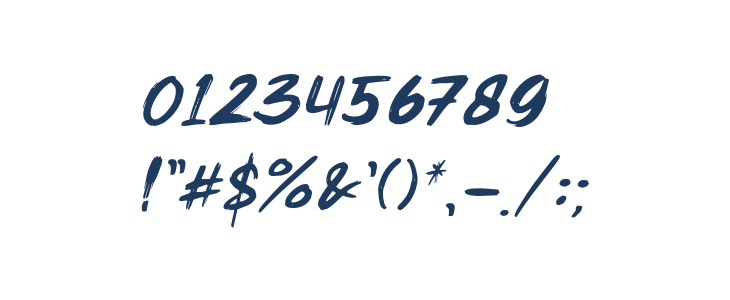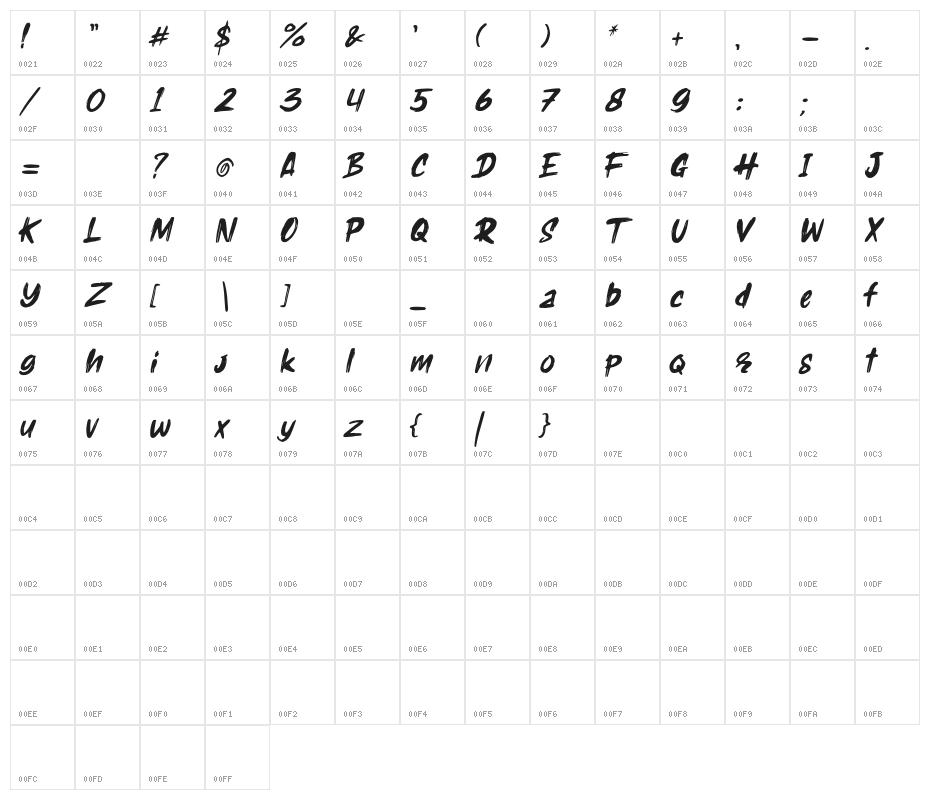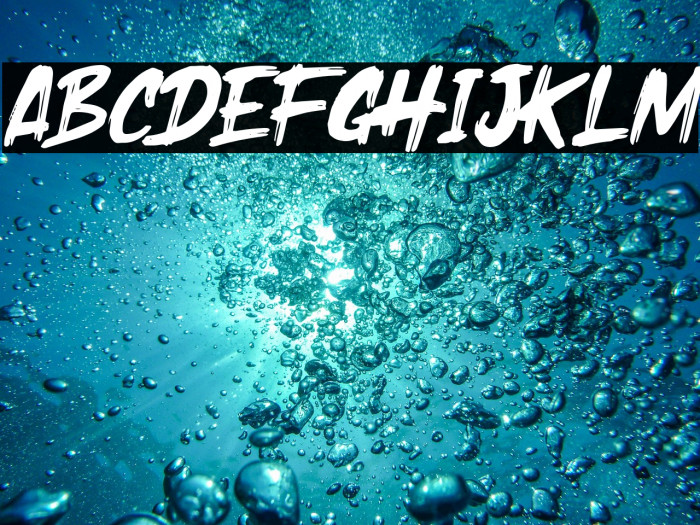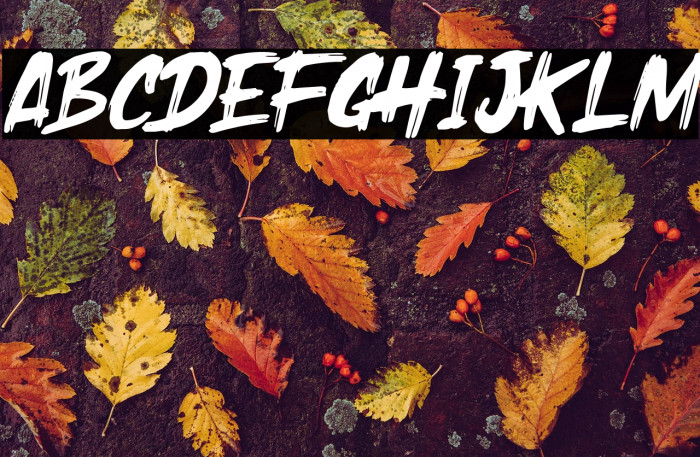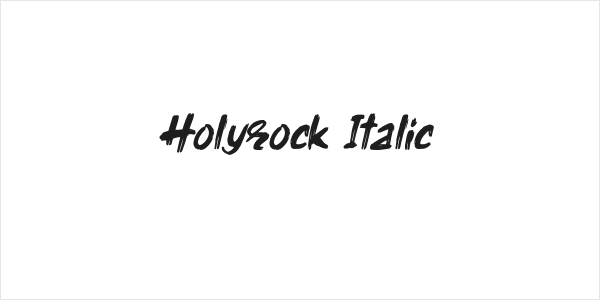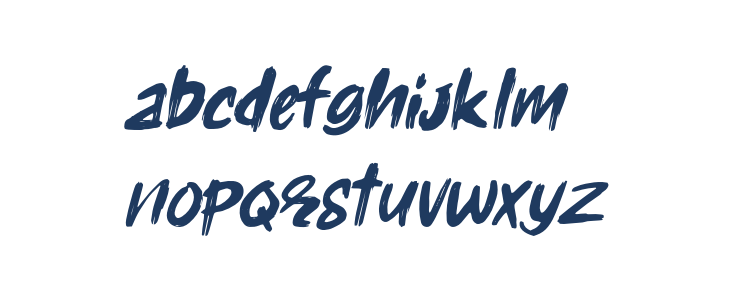
Holyrock Italic Font
Holyrock Italic Description
This font features a bold, dynamic brush style with a strong italic slant, giving it an energetic and expressive appearance. The strokes are thick and uneven, mimicking the natural flow of hand-painted lettering. Each character is distinct, with a sense of movement and flair that adds a personal touch. The uppercase and lowercase letters maintain a consistent style, while the numbers and special characters integrate seamlessly, enhancing the font's versatility. Its bold presence makes it ideal for eye-catching designs.